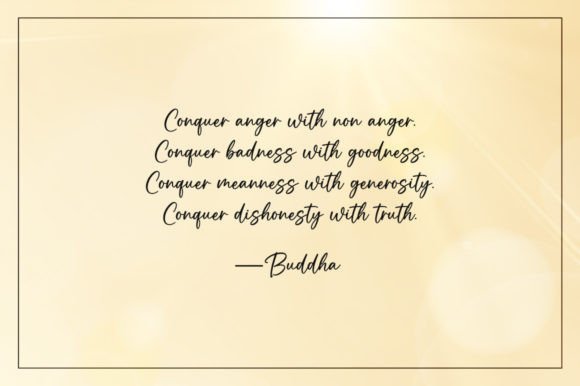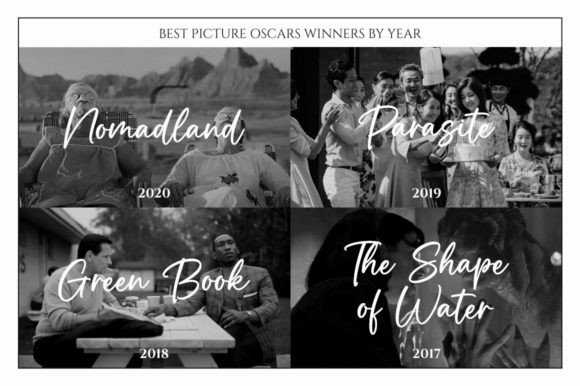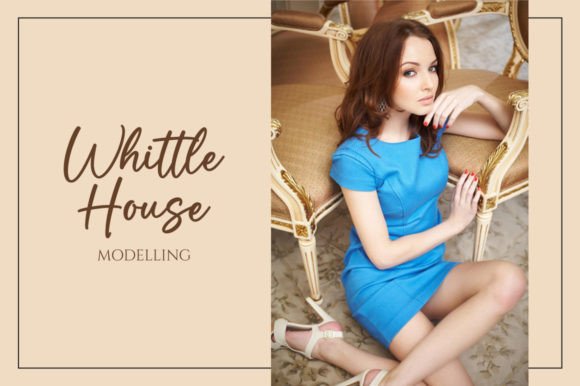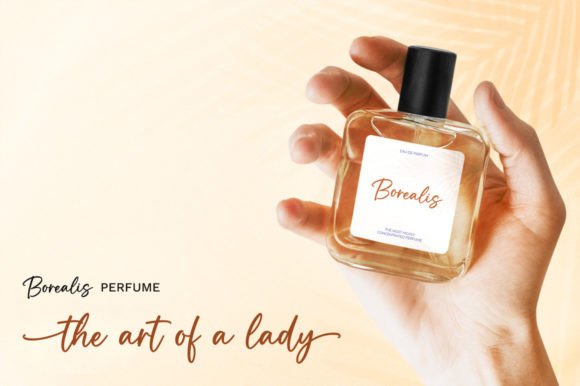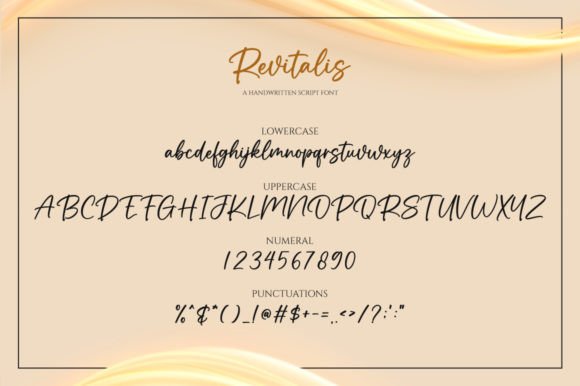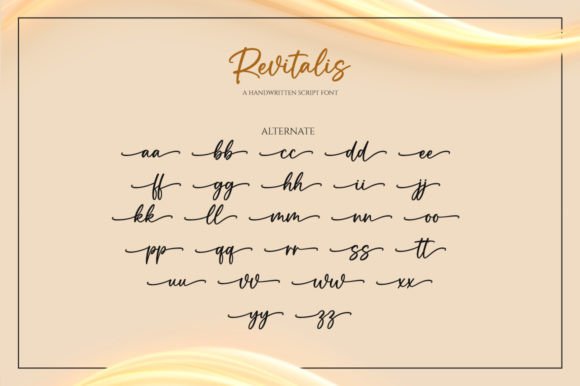
Introduction to Revitalis Font
As a designer, there’s nothing quite like the thrill of staring at a blank canvas, waiting for inspiration to strike. It’s that moment when creativity takes over, and the possibilities seem endless. For me, it was the moment I stumbled upon the Revitalis Font, a lovely and timeless handwritten font that instantly captured my attention.
The Revitalis Font is more than just a design resource – it’s a game-changer for any creative project. With its high-quality glyphs and swashes, this font is perfect for creating eye-catching logos, branding, and quotes. And the best part? It’s PUA-encoded, making it easy to access all the features and customize your designs to perfection.
Key Features of Revitalis Font
- High-quality typography with a modern and creative design, perfect for various projects and applications.
- Designed with a clean and minimalist aesthetic, making it ideal for use in logos, branding, and creative projects.
- Perfect for designers and artists looking for a unique and high-quality design resource for their next creative project.
Honest Review: Revitalis Font
I recently had the opportunity to work with the Revitalis Font on a creative project, and I must say I was quite impressed. This free download is a high-quality design resource that has already become a staple in my design arsenal.
- ✨ The font’s versatility – it can be used for a wide range of creative projects, from logos to digital interfaces.
- ✨ The transparent background option, which makes it easy to use in various design scenarios.
- ✨ The font’s modern and sleek aesthetic, which adds a touch of sophistication to any design.
- ⚠️ The font’s character set is limited, which may not be ideal for projects that require a wide range of languages or characters.
- ⚠️ The font may not be suitable for use in very small sizes, as the text can become difficult to read.
Overall, I’m very impressed with the Revitalis Font. While it may have a few limitations, its high quality and versatility make it a valuable addition to any designer’s toolkit.
When using Revitalis Font, consider the following tips: use it with a transparent background for a clean and modern look, and experiment with different font sizes and styles to add visual interest to your design. Common use cases include creating logos, branding materials, and social media graphics.